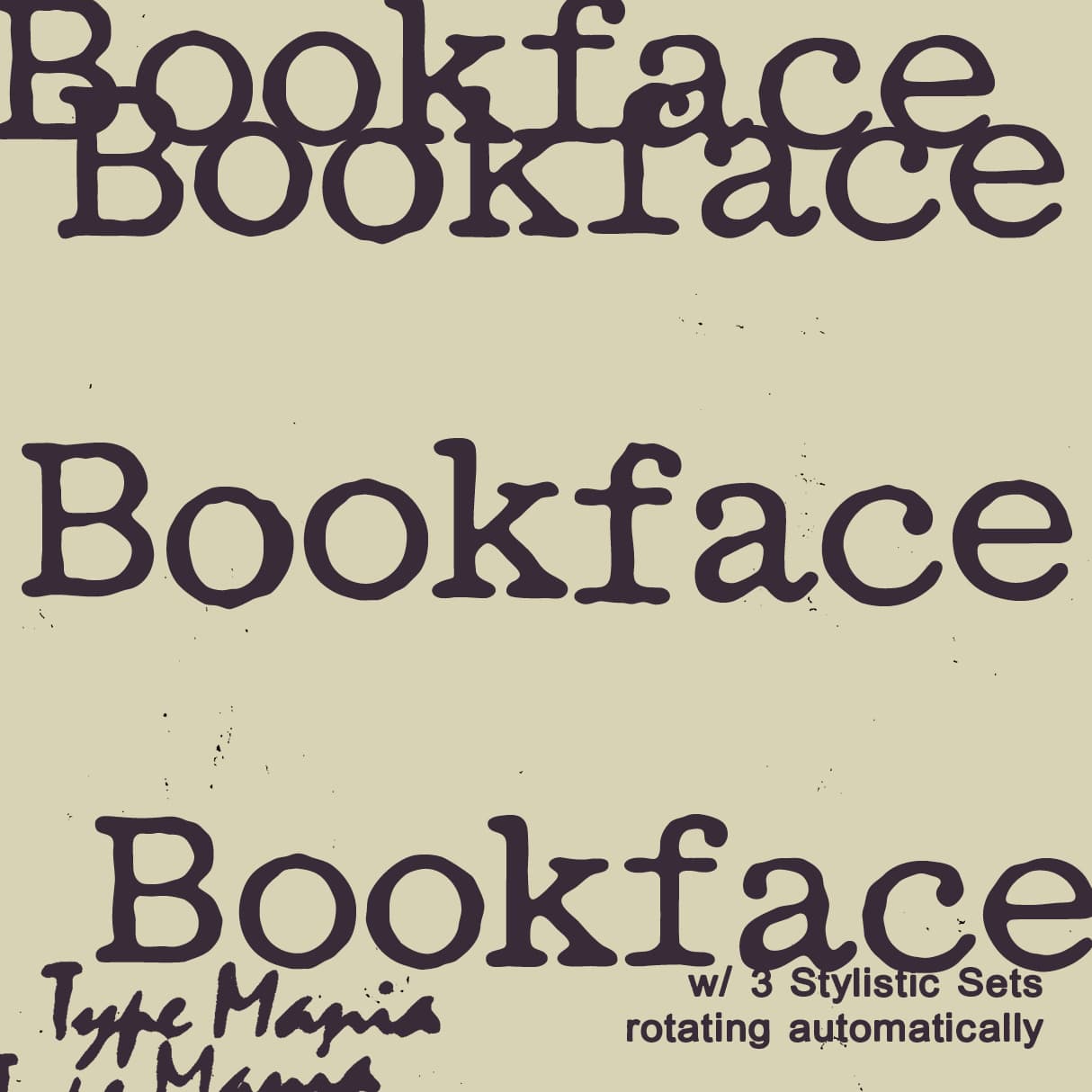
<p><strong>Bookface TM</strong> – an egyptienne slab with three stylistic sets in the mix. Switch on contextual alternates and the letters rotate automatically, creating a living texture for paper and pixels 🫡</p><p></p><p></p><p><strong>Zip includes</strong></p><ul><li><p>OTF file</p></li><li><p>TTF file</p></li><li><p>WOFF2 file</p></li></ul><p></p><p><strong>OpenType features</strong></p><ul><li><p>3 stylistic sets</p></li><li><p>The font is programmed to automatically shift between the stylistic sets</p></li></ul><p></p><p><strong>Languages</strong></p><ul><li><p>Basic Latin</p></li><li><p>Western European</p></li><li><p>Euro</p></li><li><p>Central European</p></li><li><p>Pan African Latin</p></li></ul><p></p><p><em>Graphic Design is Easy (with Type Mania)®</em></p>